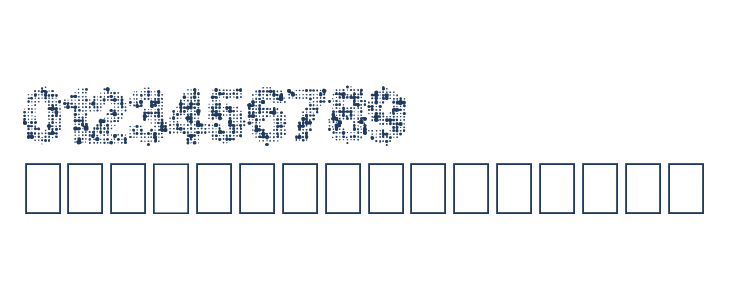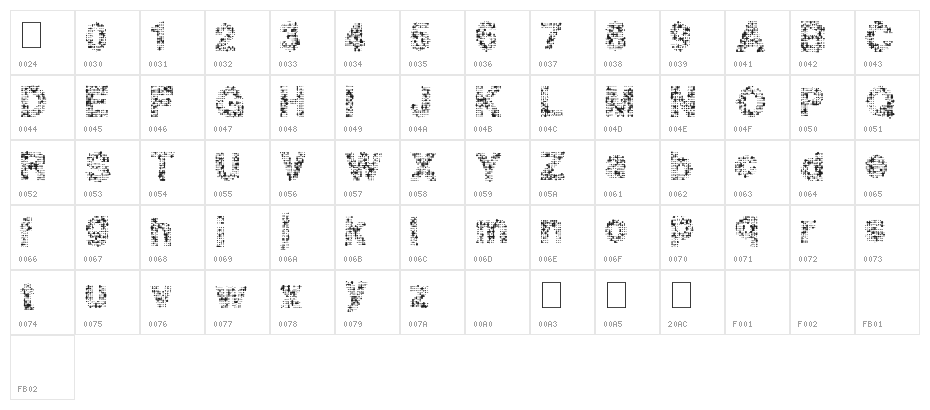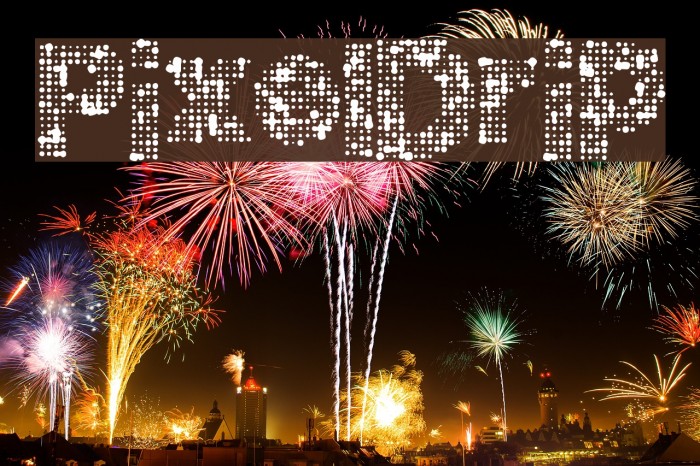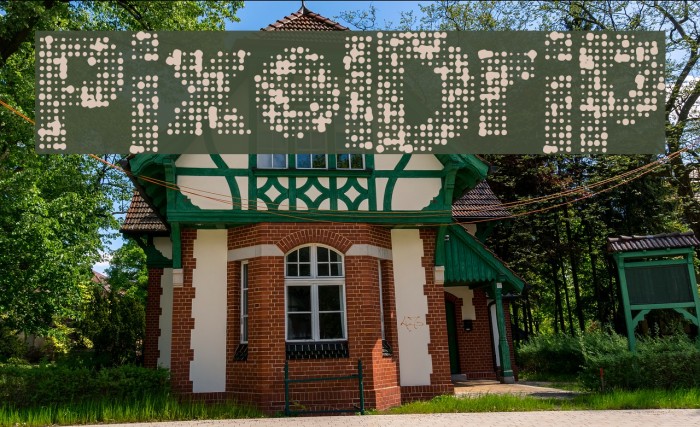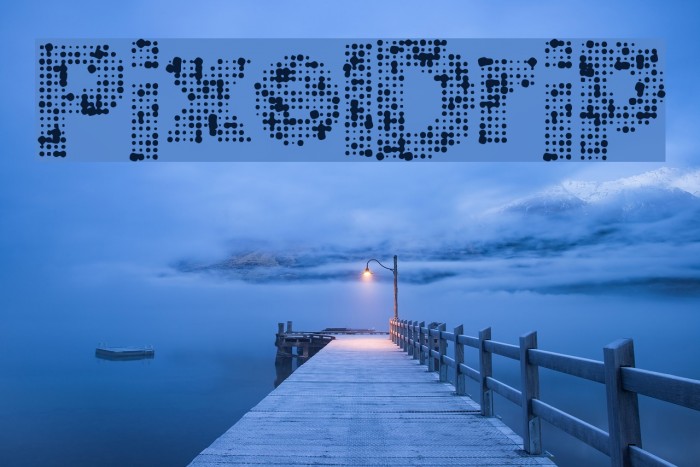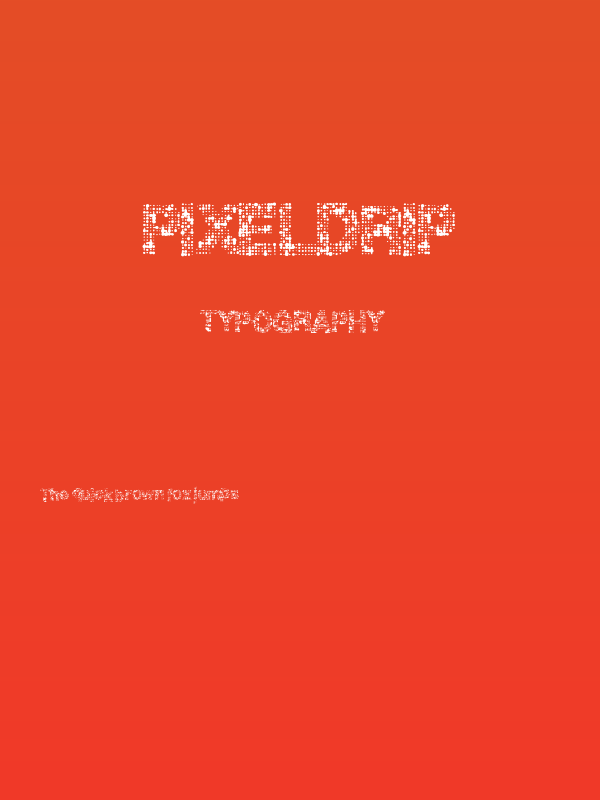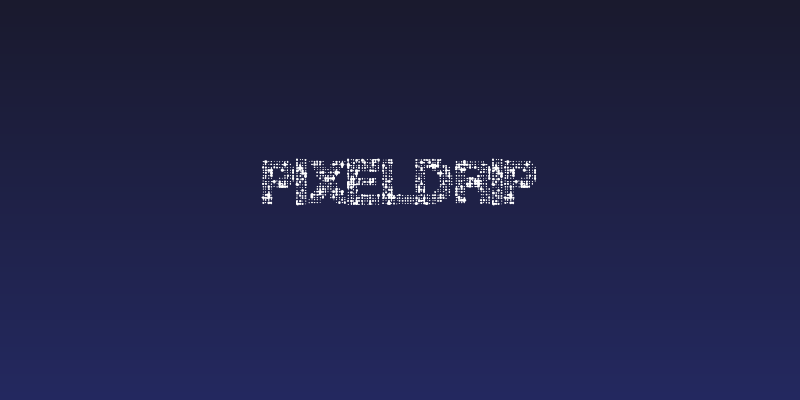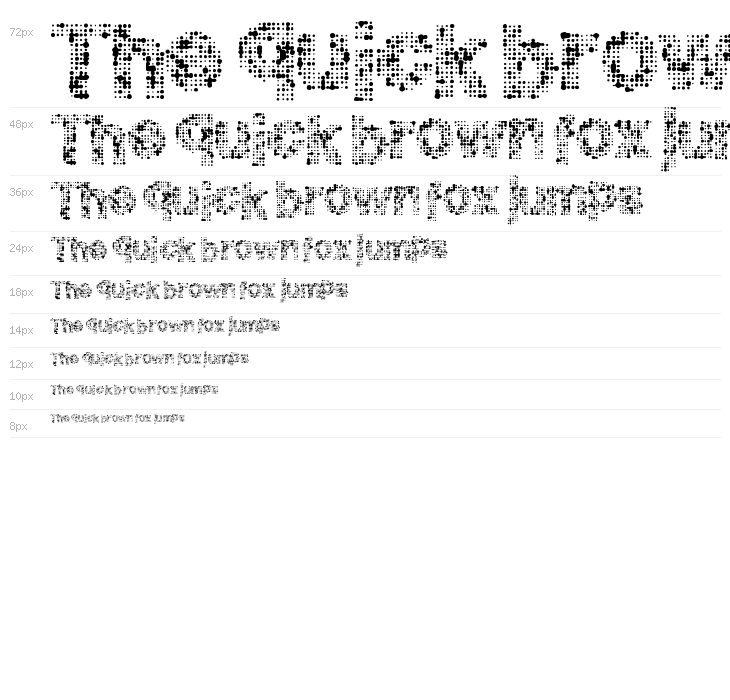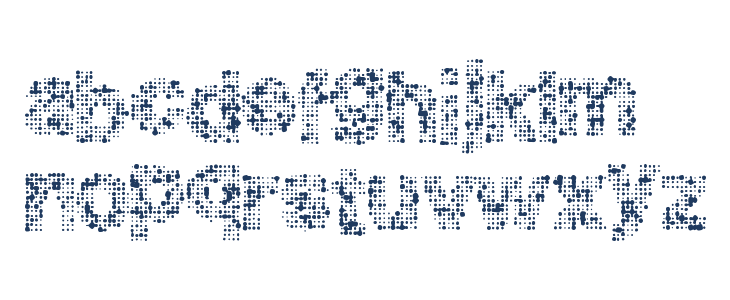
PixelDrip Font
PixelDrip Description
This font features a unique pixelated design, where each character is composed of a series of dots that create a digital, tech-inspired aesthetic. The uppercase and lowercase letters, as well as numbers, maintain a consistent style that emphasizes a modern, digital look. The characters are well-defined, with each dot contributing to the overall shape, making it suitable for projects that require a futuristic or retro digital appearance. The special characters are also designed in the same pixelated style, ensuring uniformity across all glyphs.
| Use Case | Logos, Headlines, Digital Art |
| Proposed Projects | Ideal for digital art projects, tech-themed posters, video game graphics, and retro digital designs. |